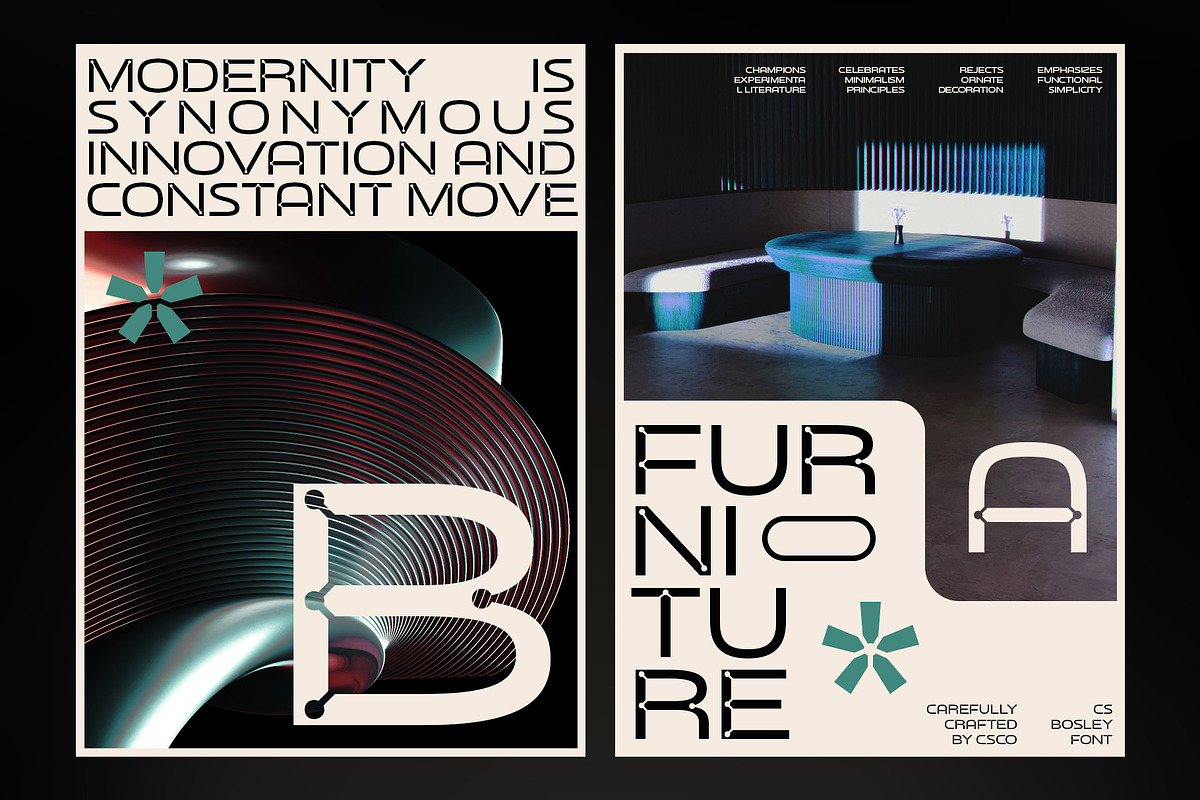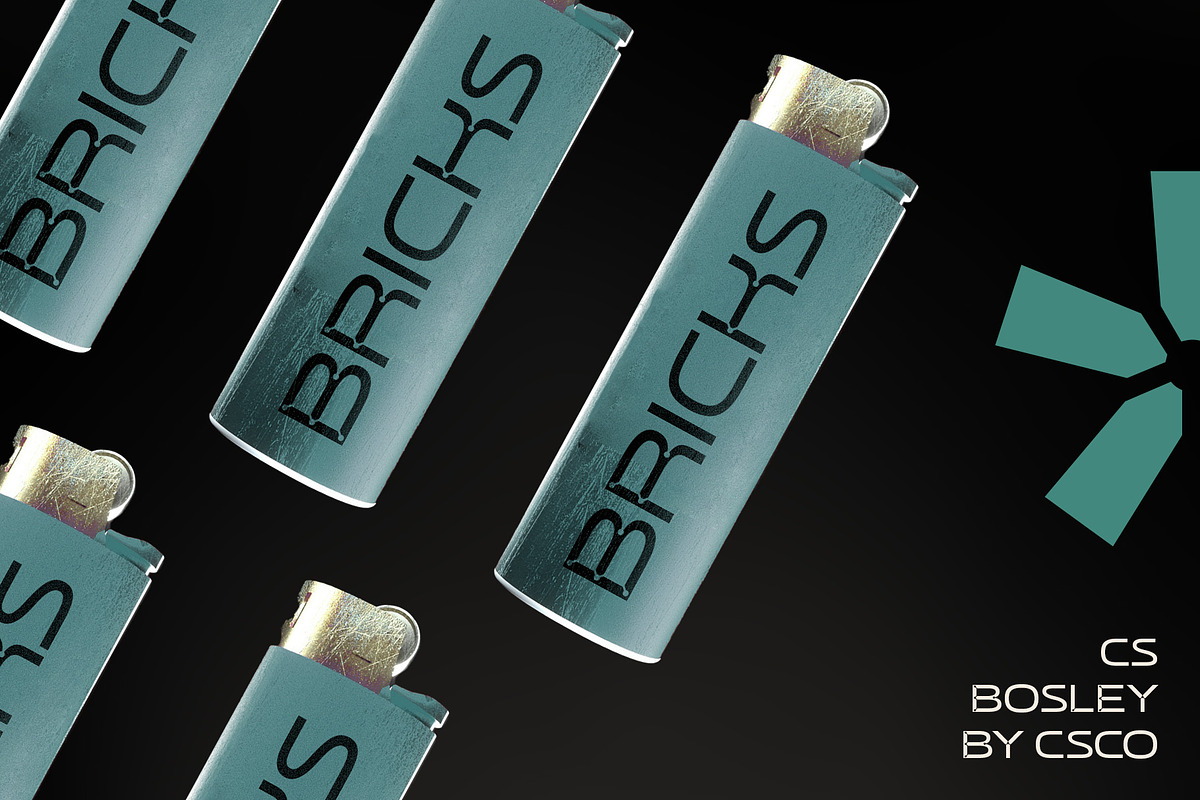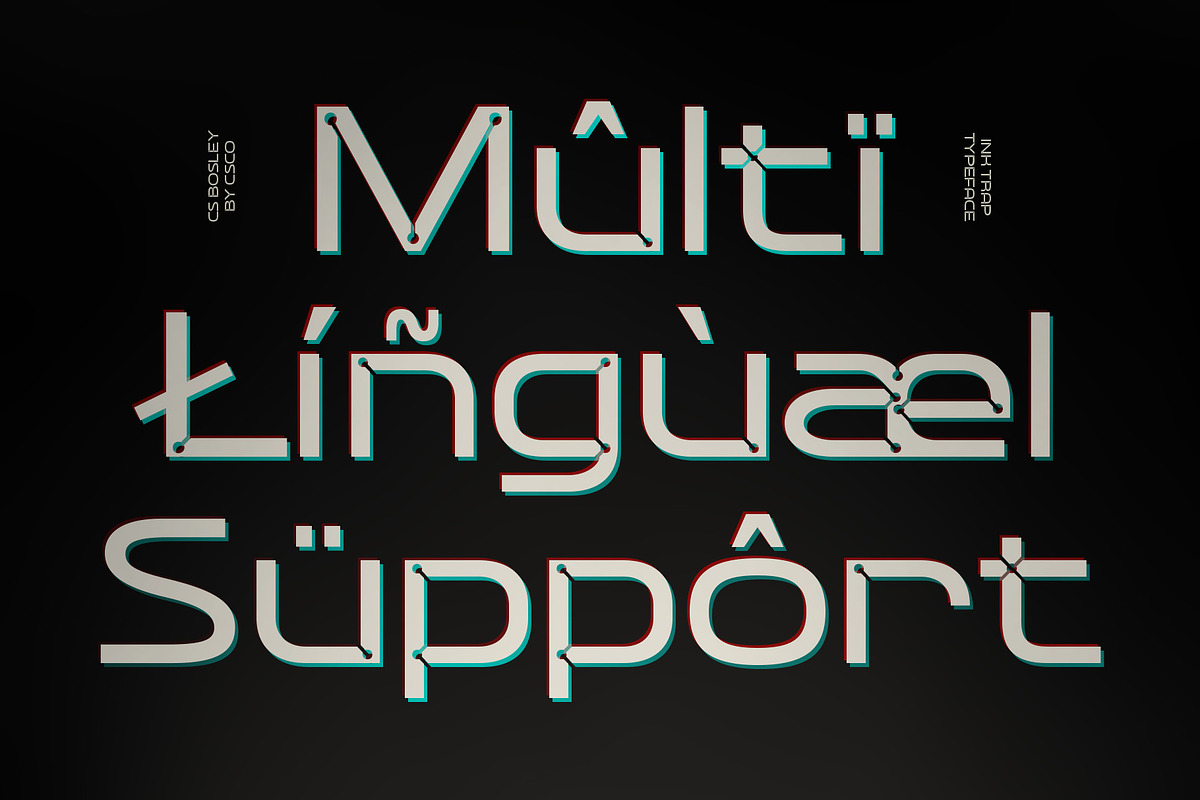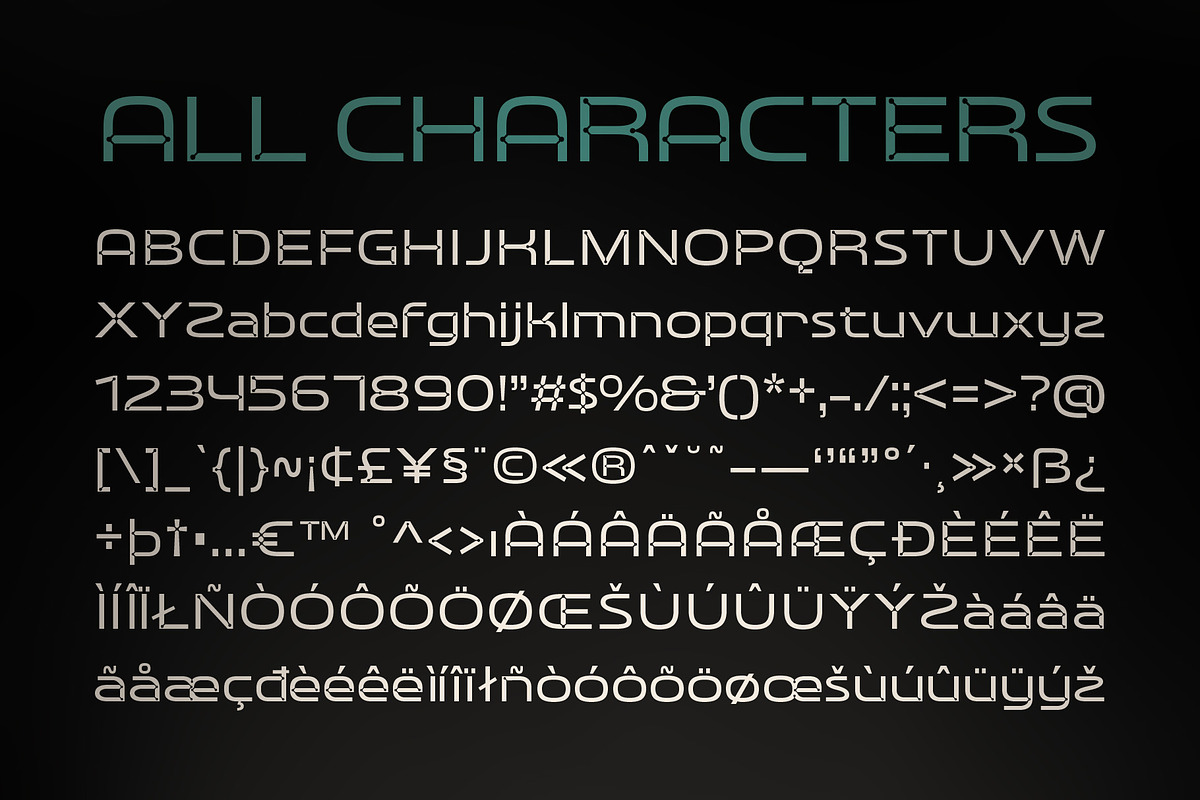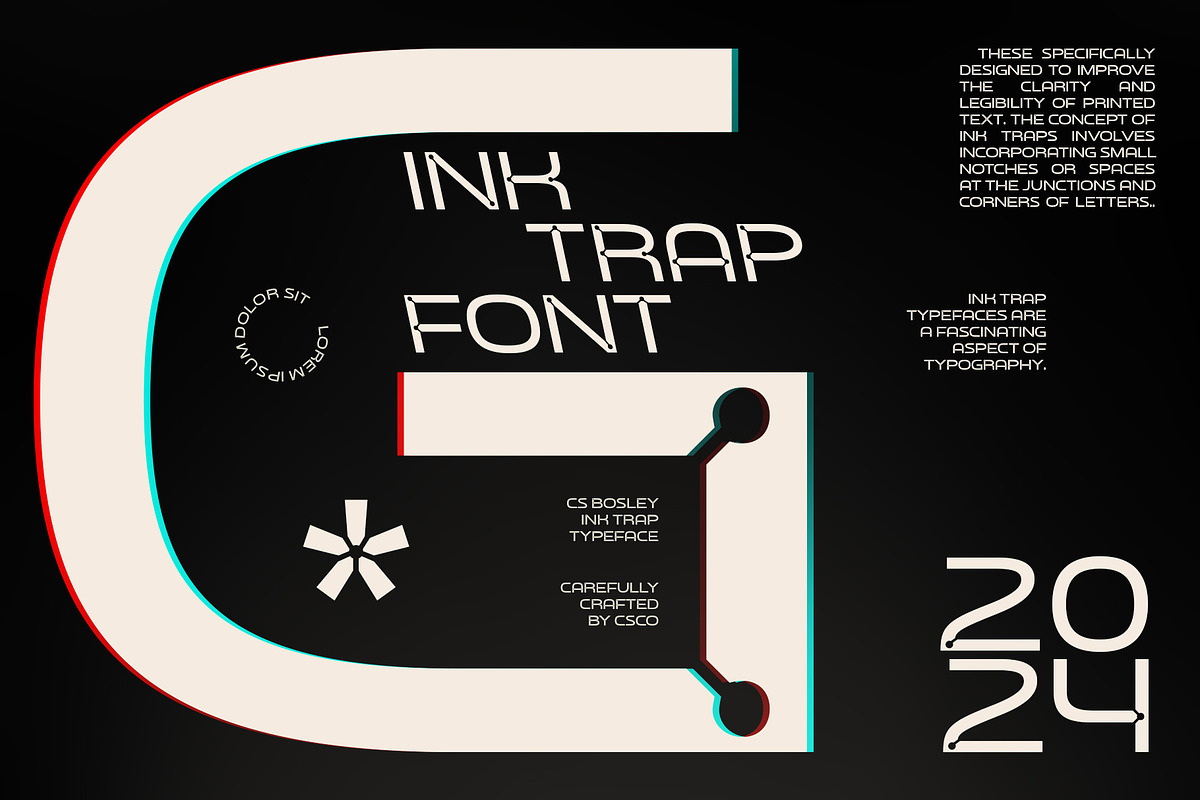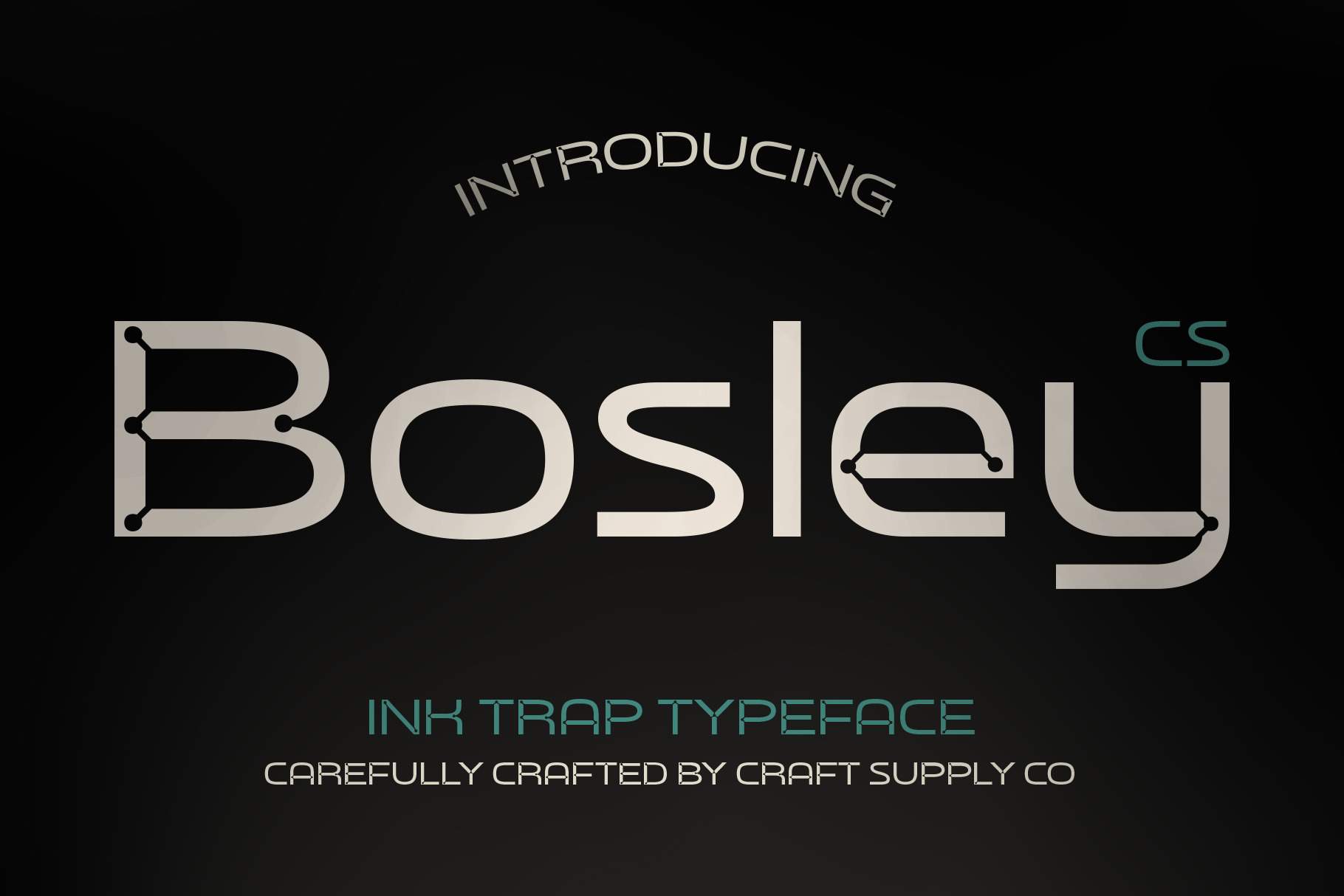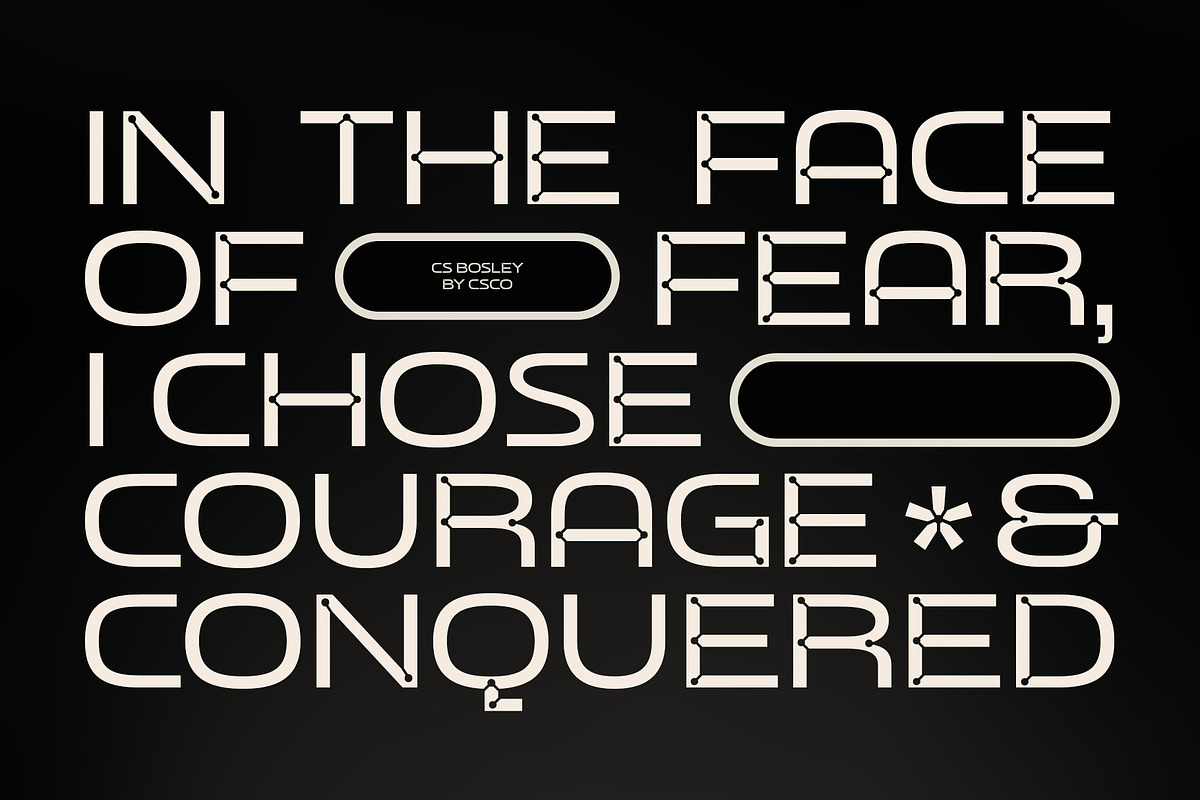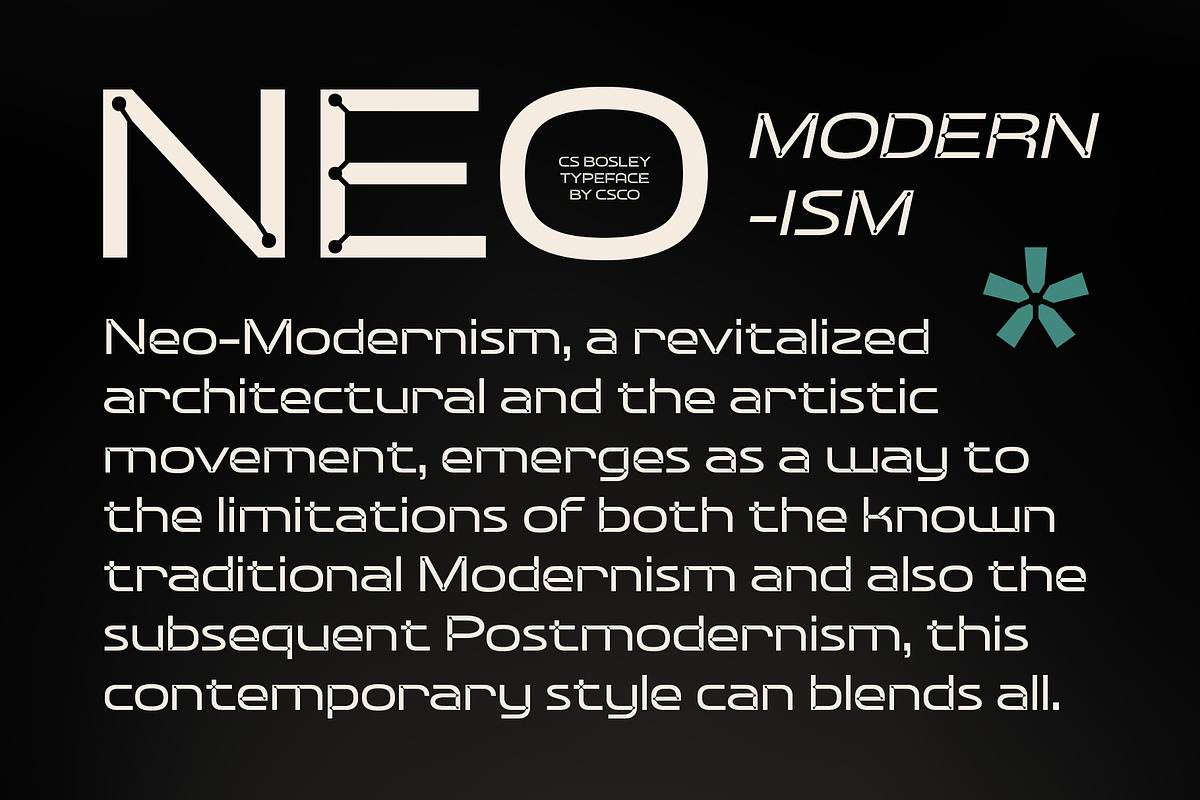
CS Bosley – Inktrap Font
CS Bosley – Inktrap Font: Where Modernity Meets Detail
Introduction CS Bosley is a modern sans-serif font with inktrap features, combining a clean and contemporary sans-serif design with a special touch of inktrap. This unique feature emphasizes the corners and fine details of the letters, providing a distinctive and appealing look.
Clean and Modern Sans-Serif Design CS Bosley features a clean and modern sans-serif design, making it perfect for modern-style designs that aim to be both elegant and easy to read. The absence of serifs gives the font a sleek and sophisticated appearance, suitable for a wide range of design projects.
Unique Inktrap Feature The inktrap feature in CS Bosley adds a special touch to the font, emphasizing the corners and fine details of the letters. This feature gives the font a unique and appealing look, making it stand out in any design project.
Ideal for Modern and Elegant Designs CS Bosley is ideal for modern-style designs that want to stand out while remaining elegant and easy to read. Whether you’re designing branding materials, logos, or digital interfaces, this font can help you achieve a look that is both contemporary and sophisticated.
- CS Bosley Regular
- CS Bosley Italic
- CS Bosley ReverseItalic